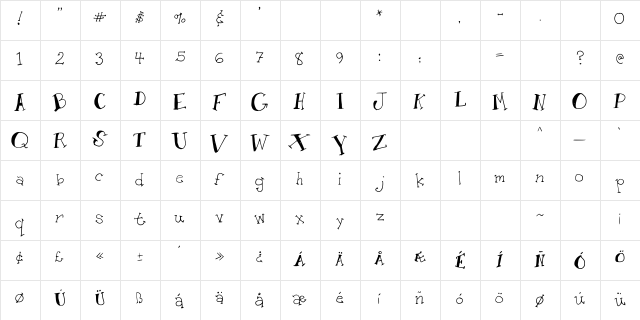
AMToon Medium
Design Context for AMToon Typeface
AMToon is a composed and adaptable typeface that performs quietly and consistently across a wide range of design contexts.